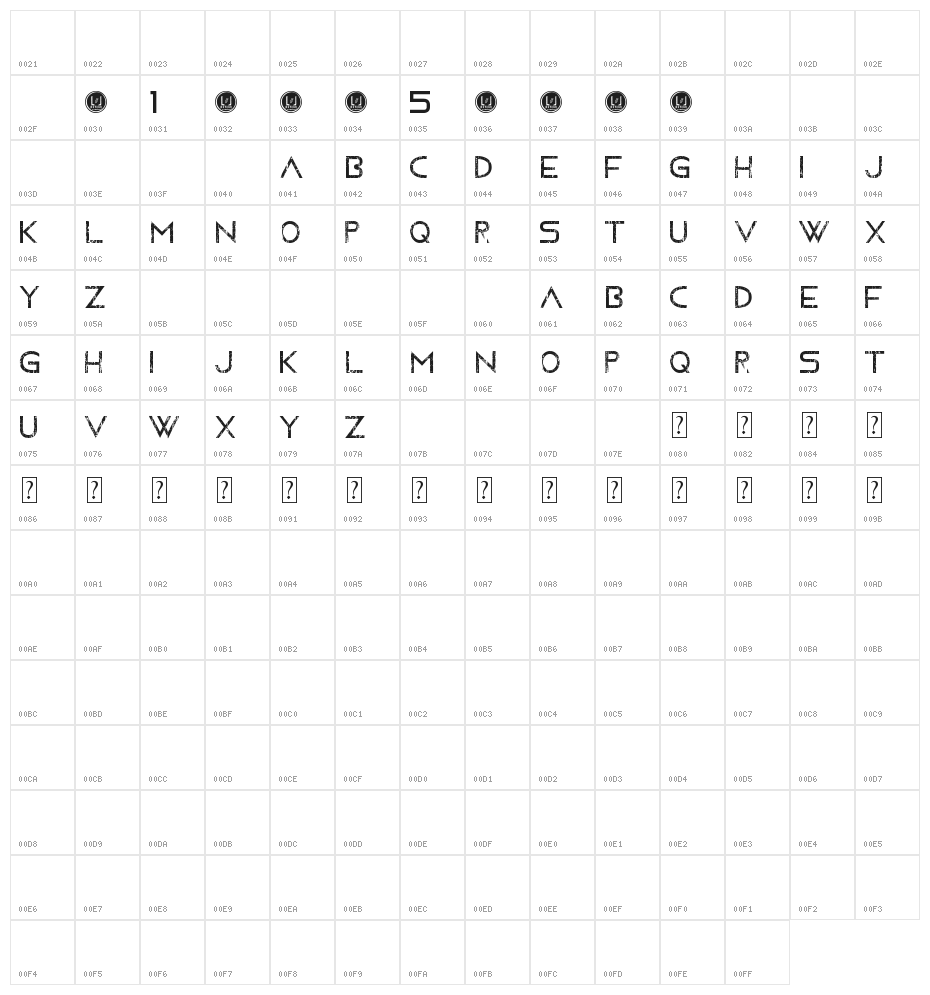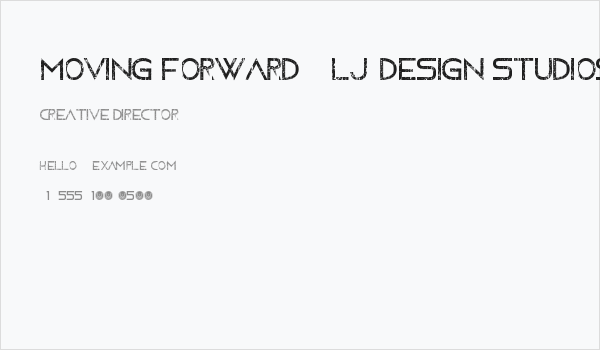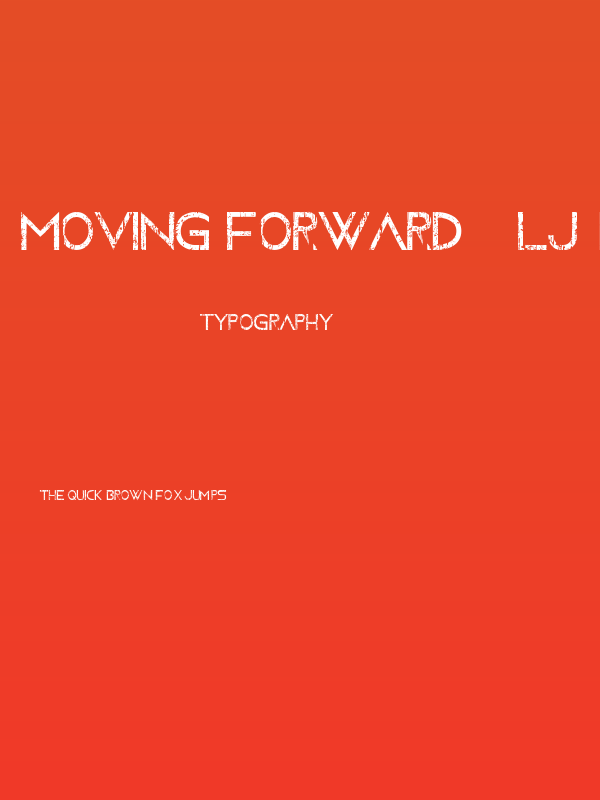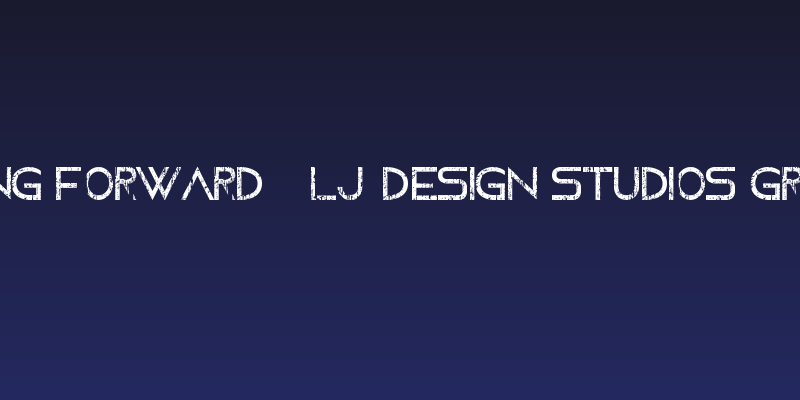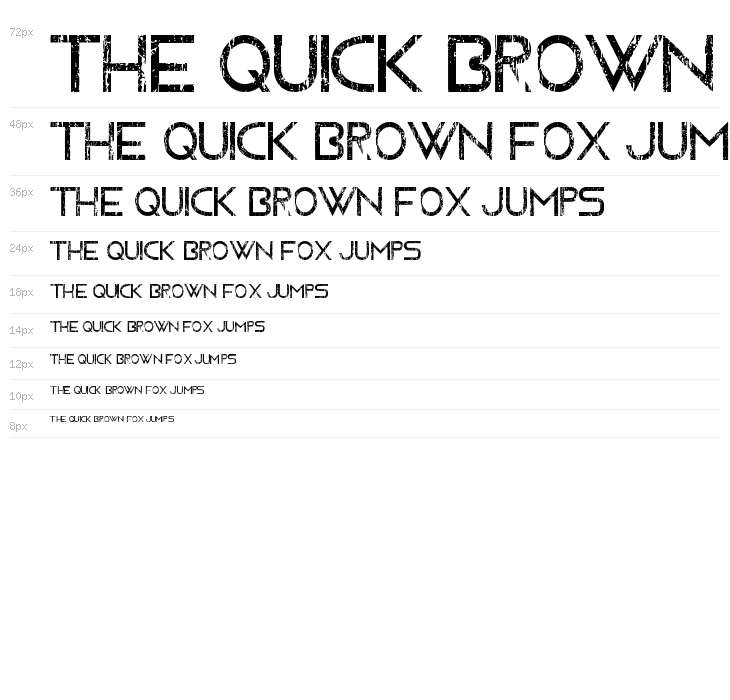
Moving Forward - LJ-Design Studios Grunge Font
Moving Forward - LJ-Design Studios Grunge Description
This font features a bold, distressed style with a grunge texture that gives it a rugged and edgy appearance. The uppercase letters are angular and geometric, with a consistent width that maintains readability despite the textured effect. The font's design is reminiscent of urban street art, making it ideal for projects that require a raw and authentic look. The characters are evenly spaced, ensuring clarity and balance across different text lengths. This font is particularly suited for creative projects that aim to capture attention and convey a sense of boldness and individuality.
| Overall Style | Grunge, Urban, Edgy |
| Proposed Projects | Ideal for album covers, posters, urban-themed branding, and edgy graphic designs. |